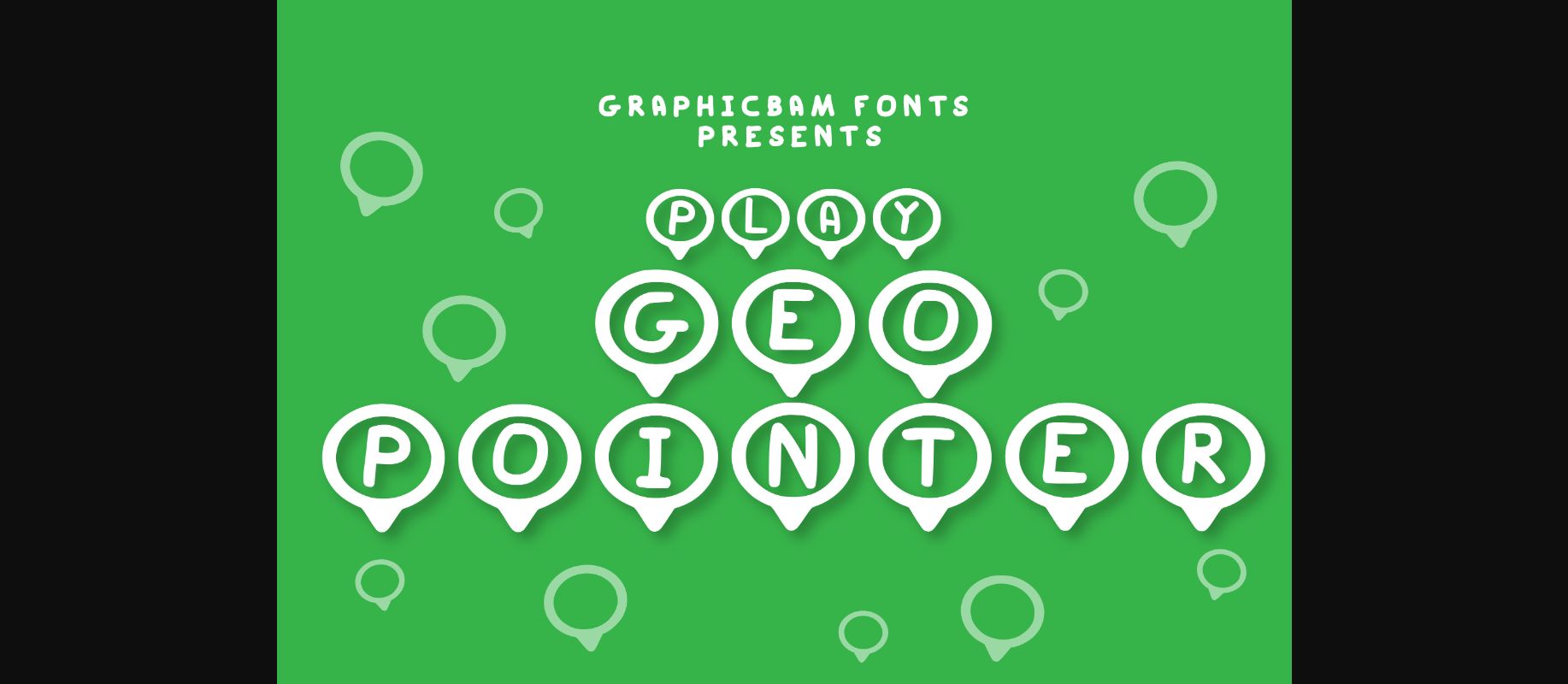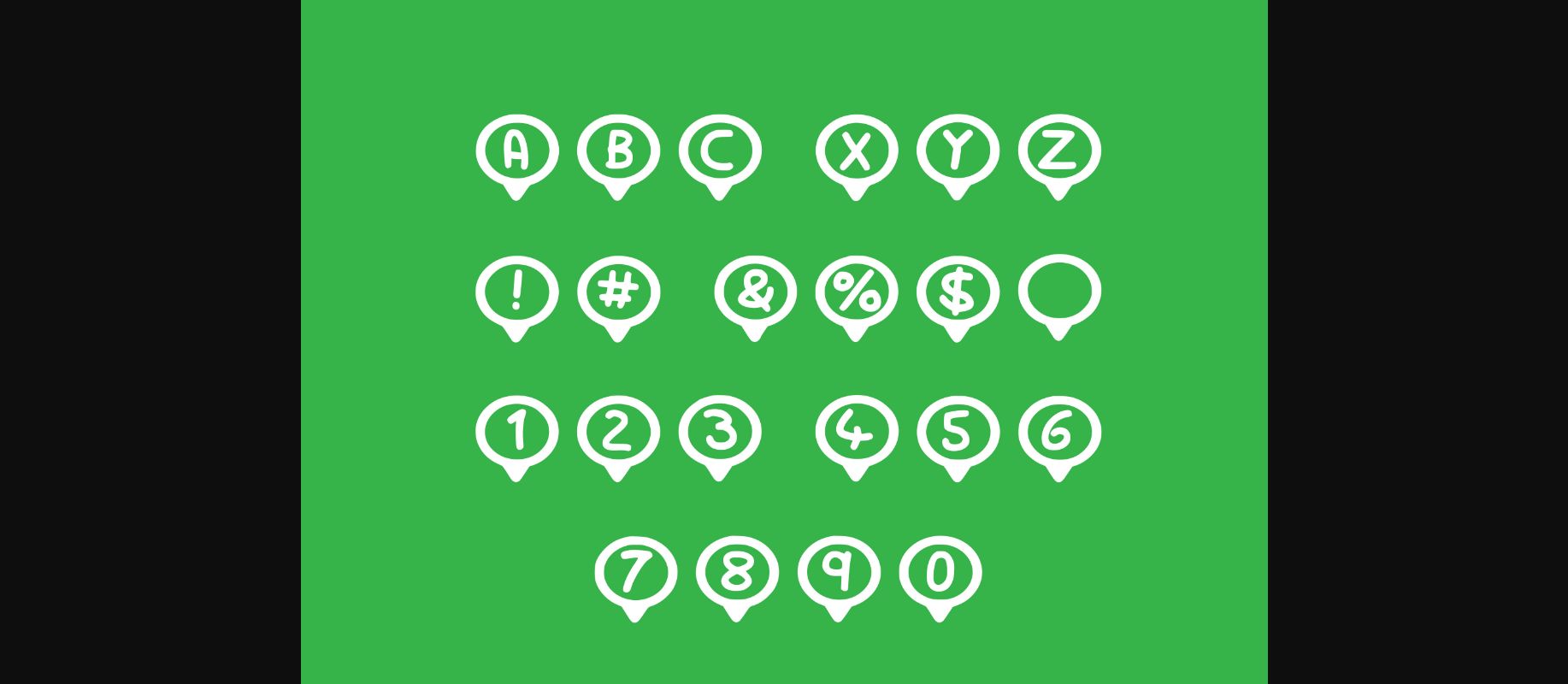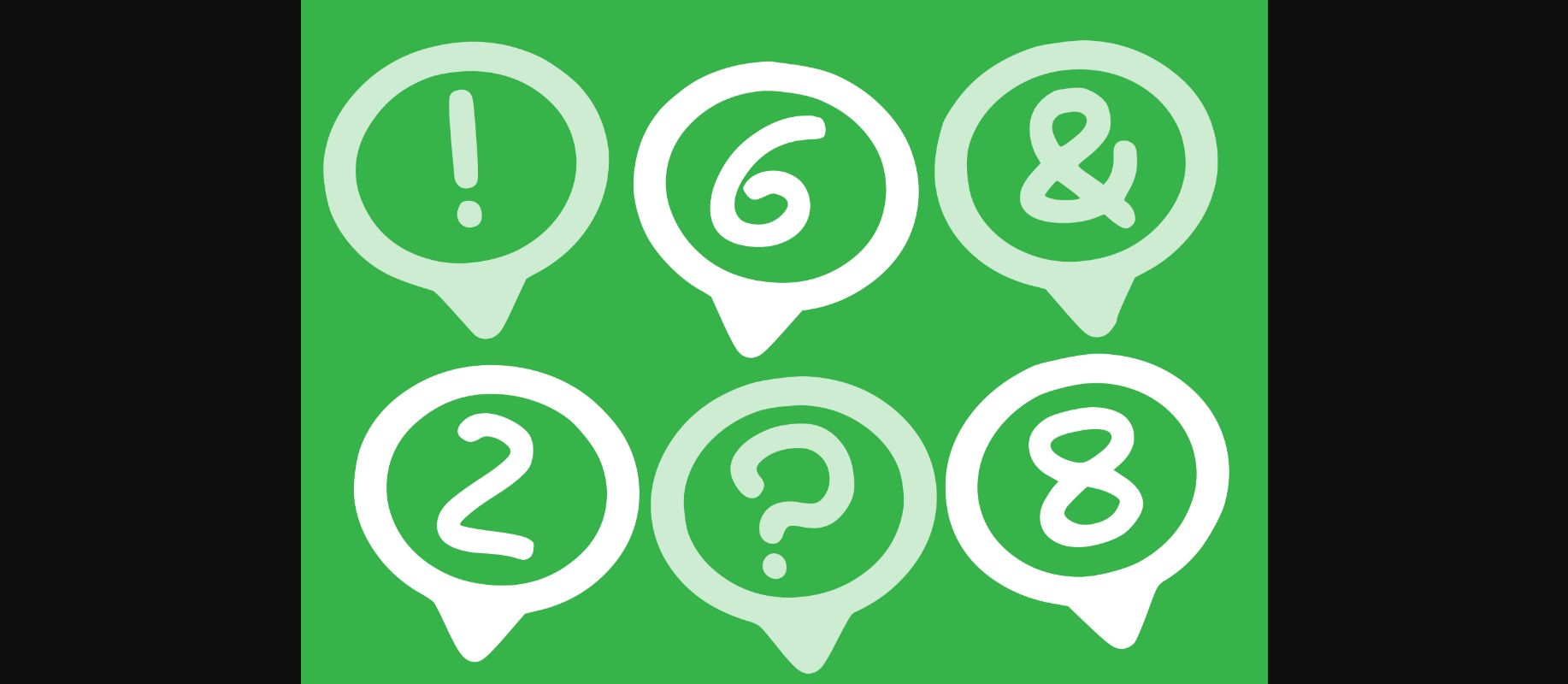
About Play Geo Pointer Font
Play Geo Pointer is a cool and unique decorative font. Whether you’re using it for crafts, digital design, presentations, or making greeting cards, this font has the potential to become your favorite go-to font, no matter the occasion!